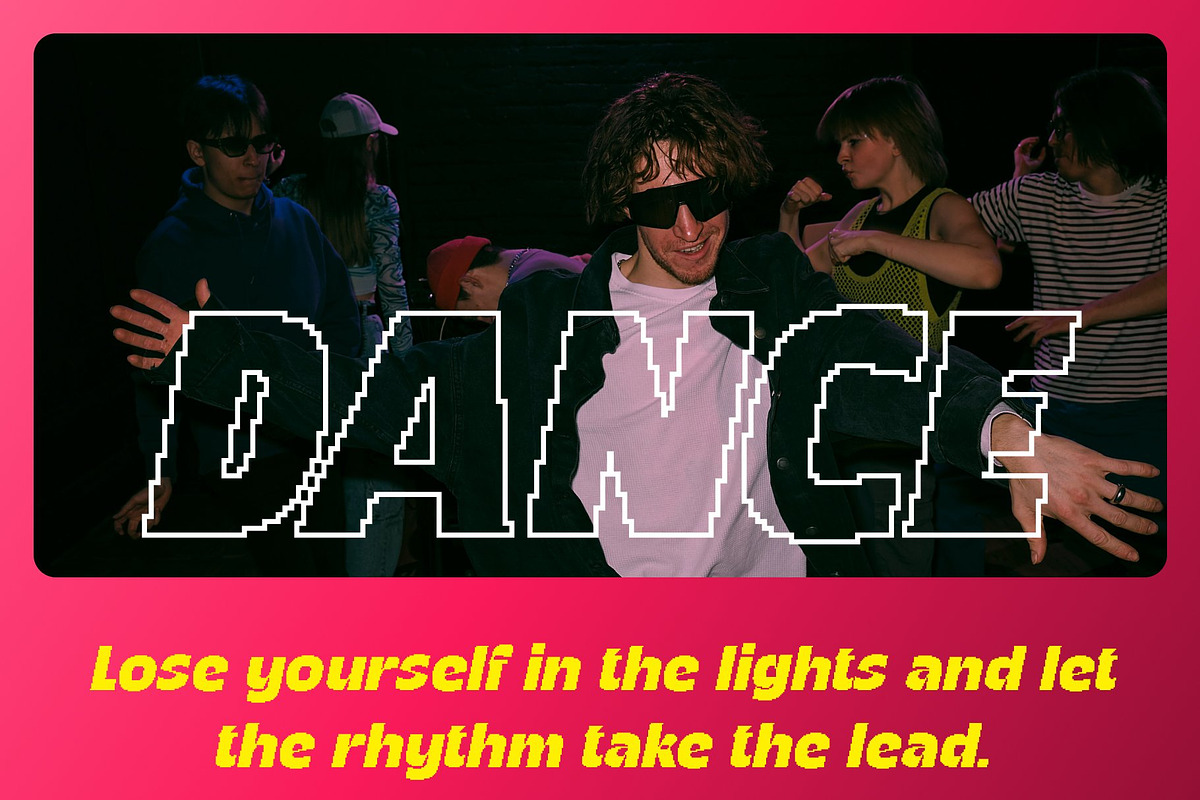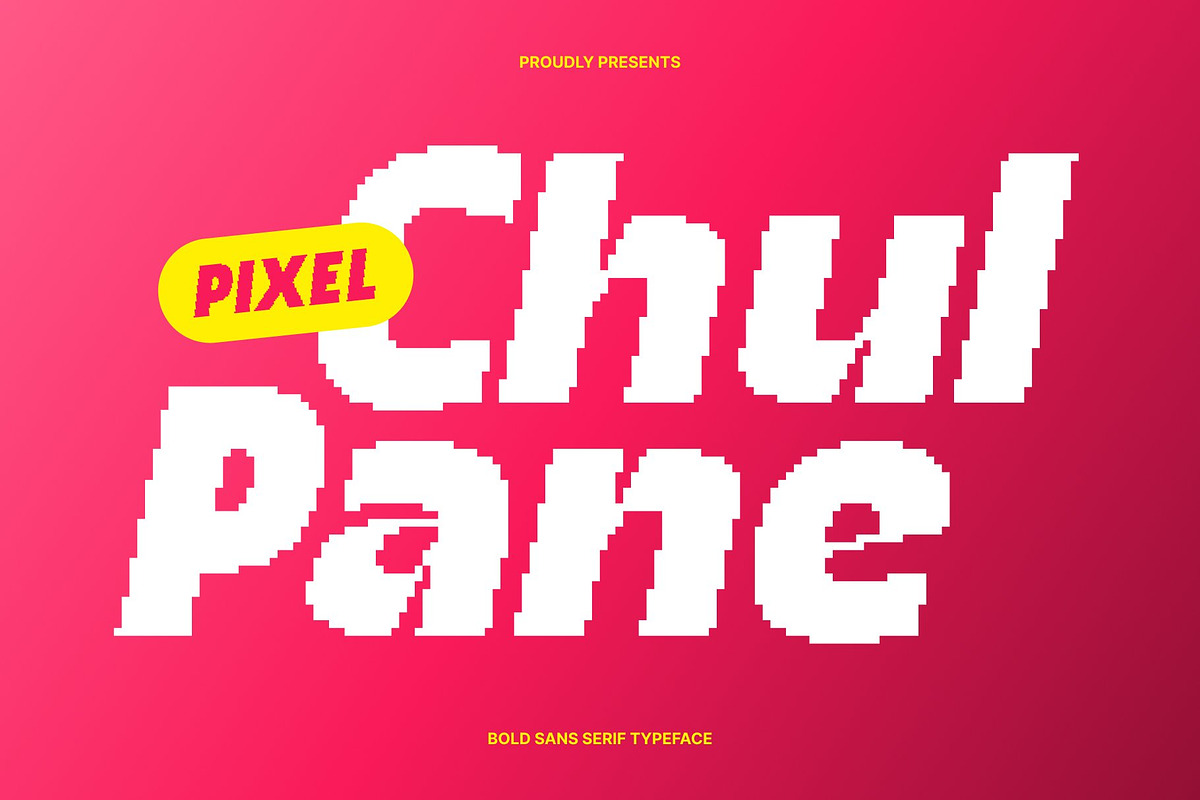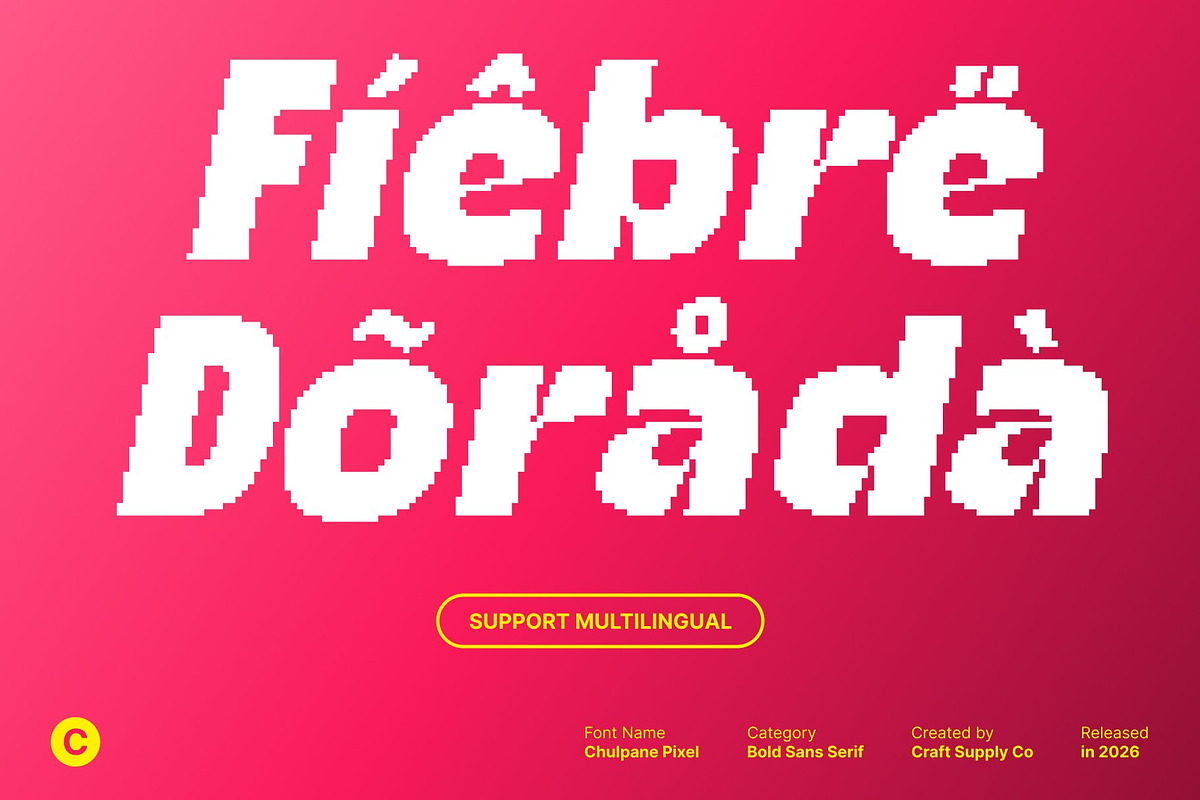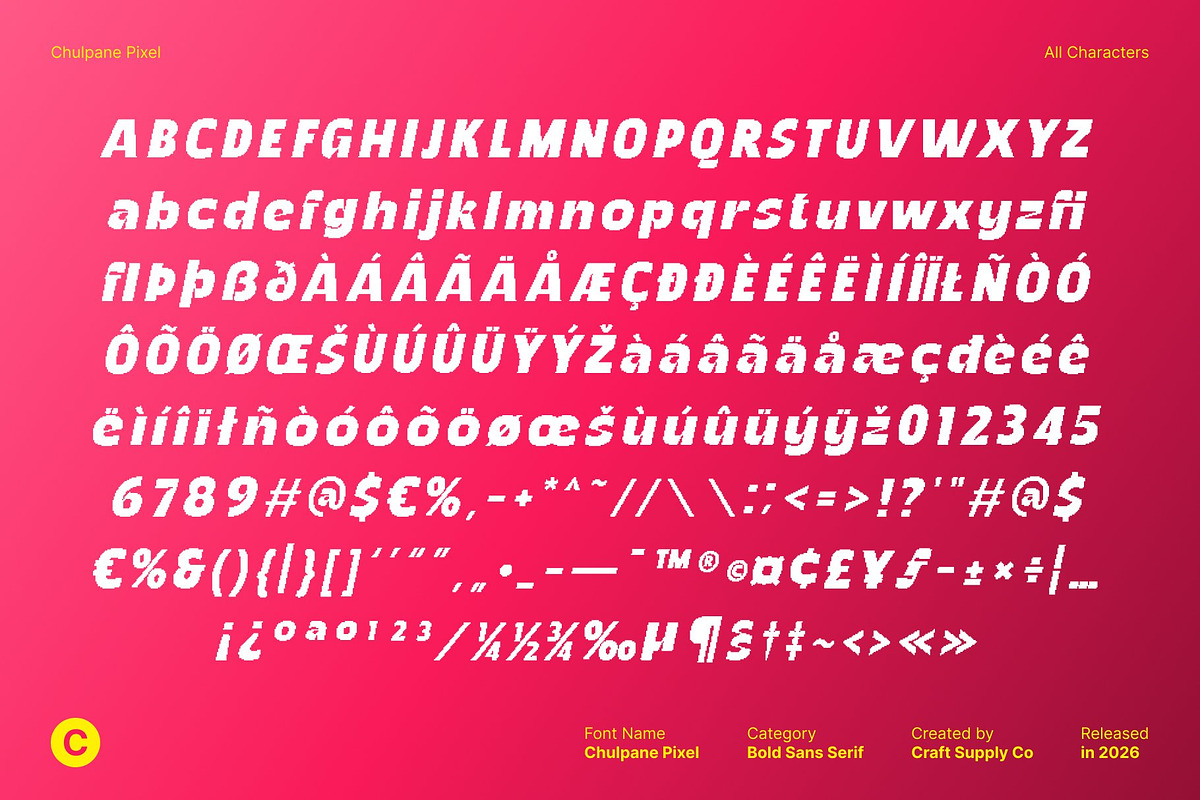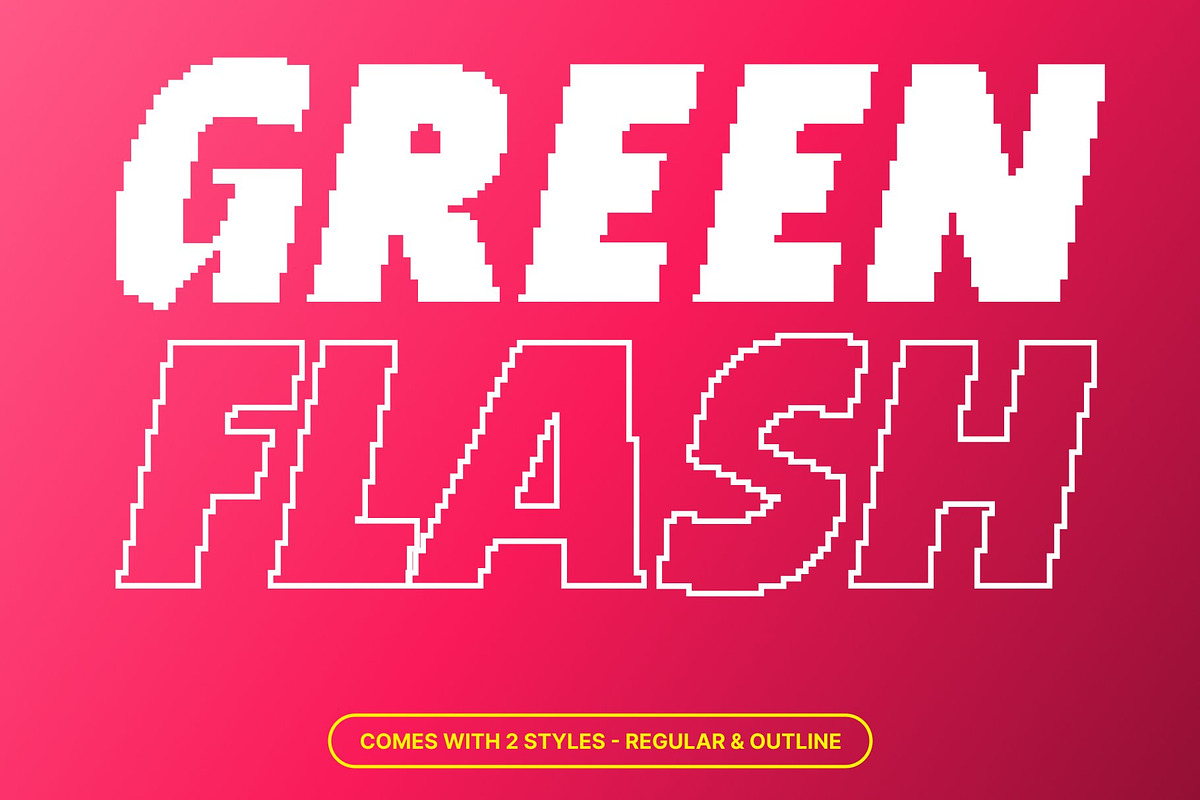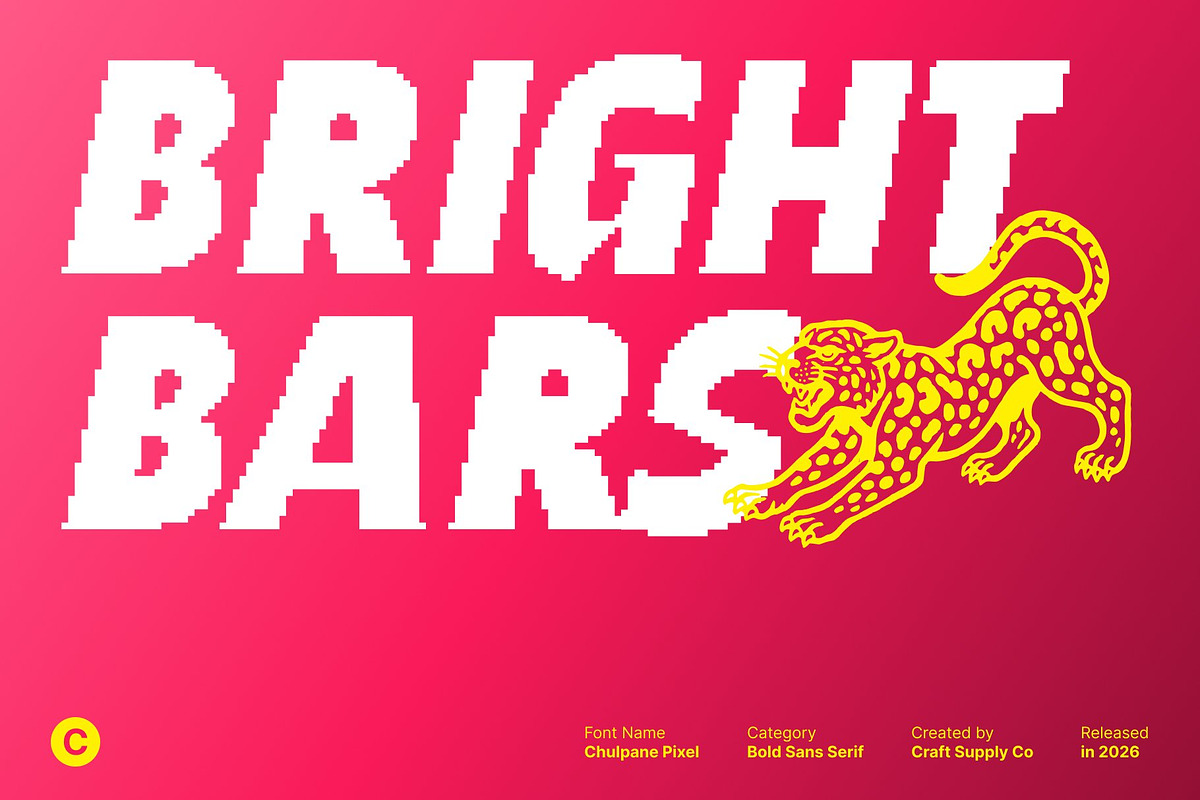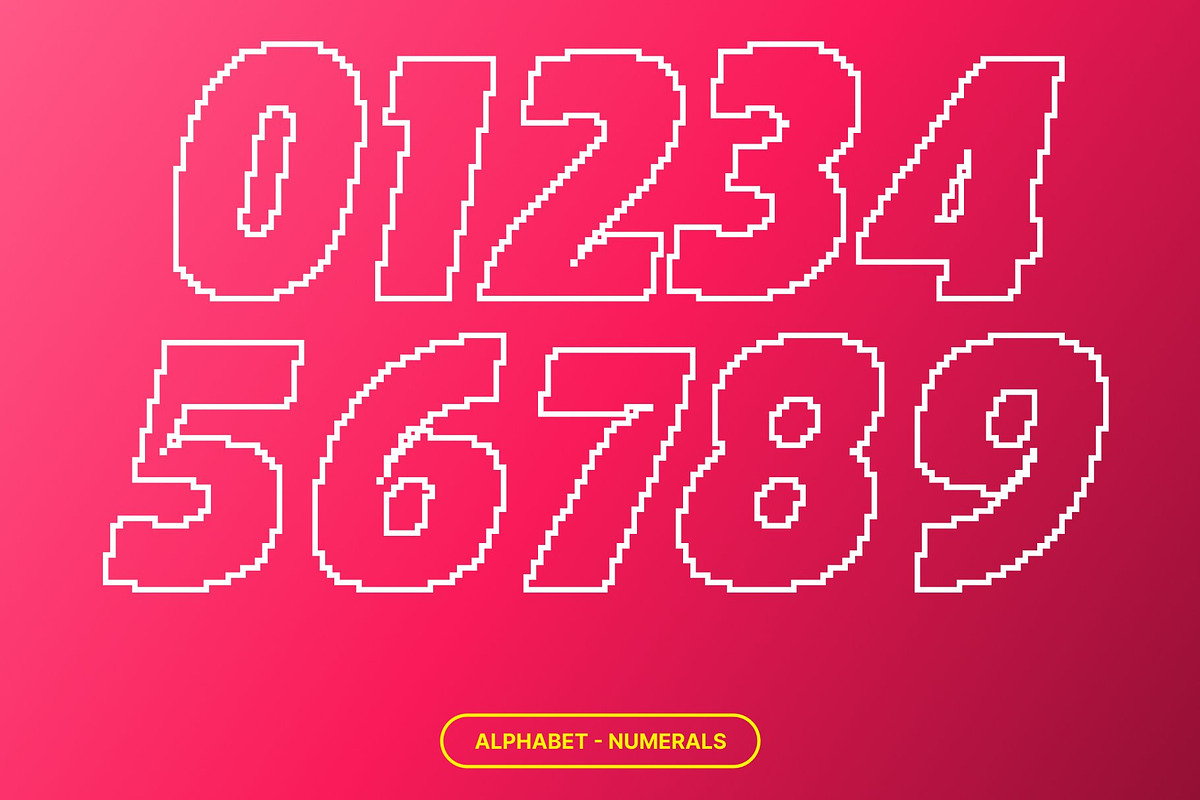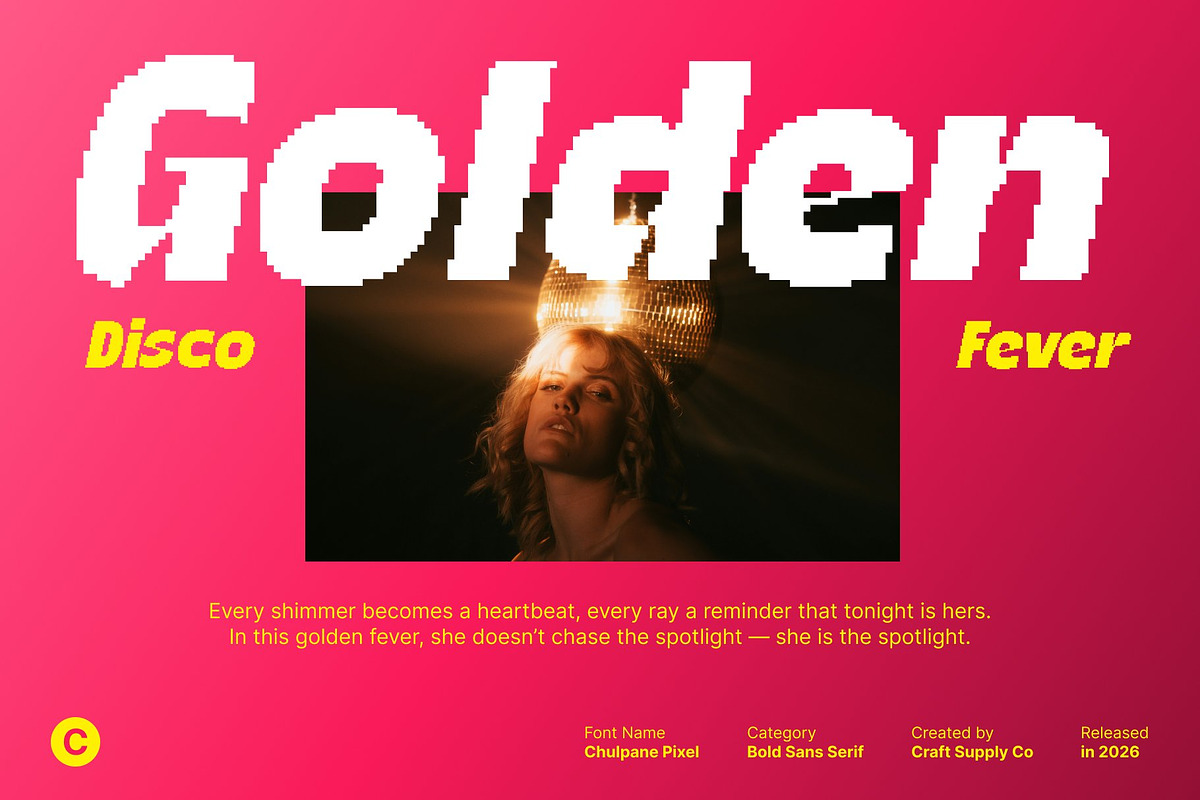
Chulpane Pixel
Chulpane Pixel – Bold Sans Serif Font with Funky Attitude
Bold Strength with Pixel Precision This is a bold sans serif font designed to deliver strength, clarity, and visual confidence. Its robust letterforms and solid construction ensure maximum readability while making a powerful statement. The pixel-inspired structure adds a sharp, contemporary edge that enhances its modern appeal.
Funky and Creative Character Design What sets this font apart is its playful and funky personality. Creative details within each character introduce a sense of movement and expression, making the font feel energetic and distinctive. This balance between bold structure and creative flair allows it to stand out without sacrificing clarity.
Versatile for Impact-Driven Designs This font performs exceptionally well across a wide range of applications. From striking headlines and posters to digital graphics and branding materials, its bold presence ensures messages are seen and remembered. The font adapts easily to both digital and print environments.
Make a Statement That Stands Out Perfect for projects that demand uniqueness and impact, this font helps your designs command attention. Its fusion of bold sans serif strength and funky creativity makes it an excellent choice for designers looking to create memorable, high-energy visuals with a modern edge.